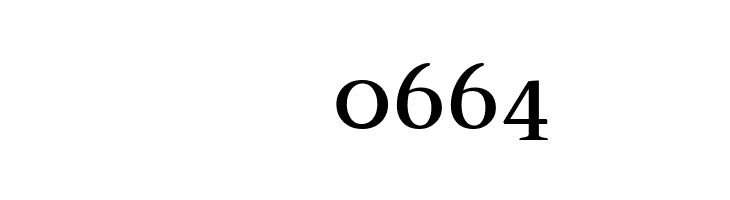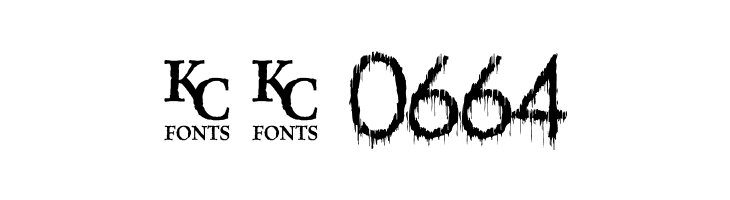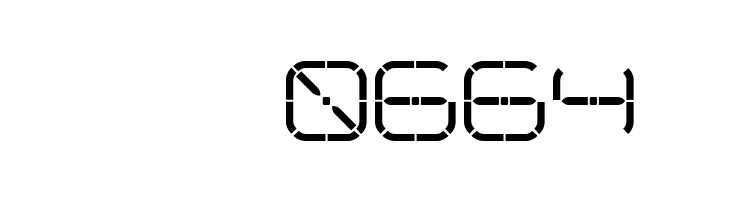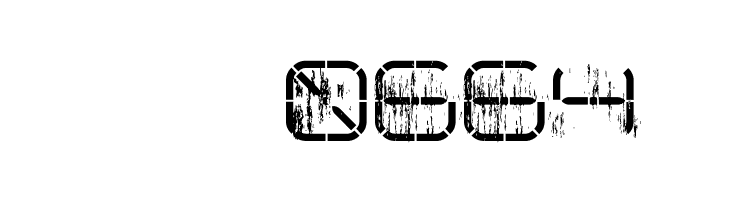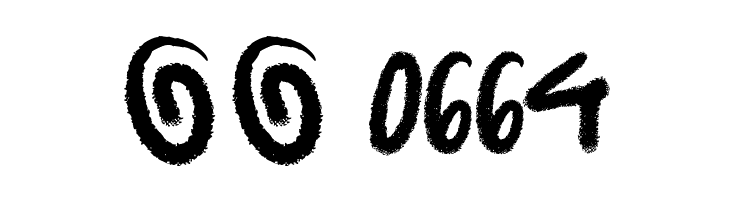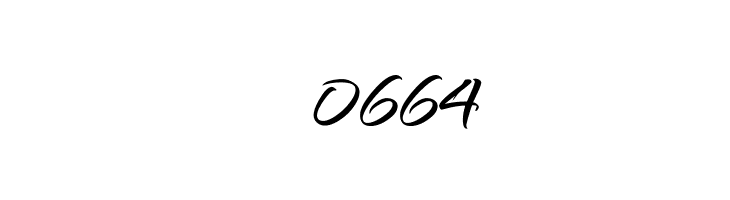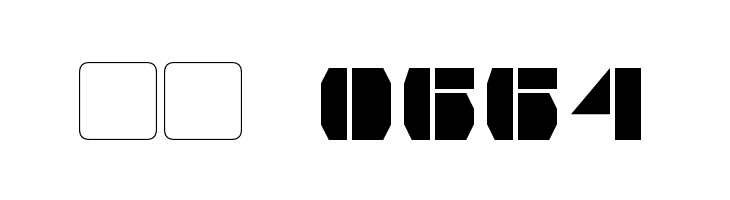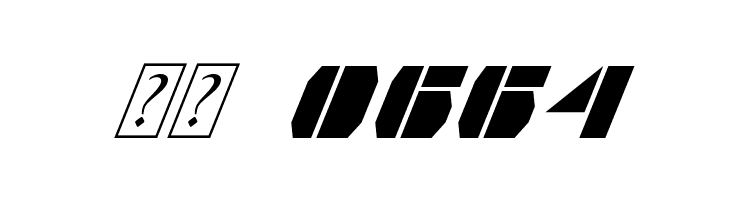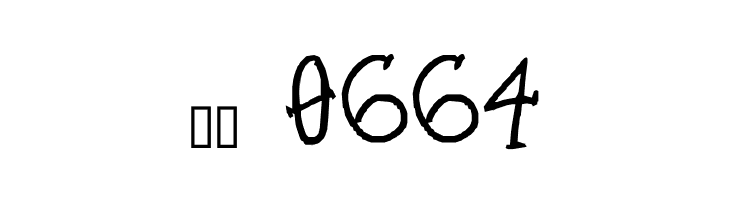
A bold, decorative font with unique embellishments and strong serifs.
A bold, geometric font with an outline effect, offering a modern and edgy look.
A bold, decorative font with a hollow, outlined design and dynamic flair.
A bold, outlined geometric font with sharp angles and clean lines.
A bold, outlined serif font with a modern yet classic appeal.
A bold, modern font with vintage elements and decorative serifs.
A modern, decorative font with geometric and bold elements.
A casual, handwritten font with a dynamic and energetic style.
A bold, textured handwritten font with a playful and dynamic style.
A geometric, hollow font with a modern and futuristic style.
A geometric, hollow, and italic display font with a futuristic style.
A bold, angular, and geometric font with a dynamic slant.
A bold, geometric, and oblique font with sharp angles and a modern style.
A bold, geometric font with a three-dimensional effect and sharp angles.
A bold, hand-drawn font with an artistic and dynamic style.
A bold, geometric font with a modern and impactful design.
A bold, distressed font with geometric shapes and rough edges.
An elegant script font with fluid, interconnected strokes and sophisticated flourishes.
A futuristic, segmented font with a digital, LED-inspired design.
A bold, eroded font with a gritty, vintage appearance.
A modern, elegant script font with smooth, flowing lines.
A bold, brush-textured font with a dynamic and artistic style.
A futuristic, geometric font with a bold, modular design.
A classic serif font with elegant proportions and refined serifs.
A classic italic font with smooth curves and moderate contrast, offering elegance and readability.
A classic serif font with elegant curves and moderate contrast.
An edgy, dripping font with a rebellious, artistic vibe.
A modern, rounded font with a sleek and clean design.
A bold, modern typeface with geometric shapes and smooth curves.
A modern sans-serif font with balanced proportions and smooth curves.
A bold, clean sans-serif font with a modern and professional look.